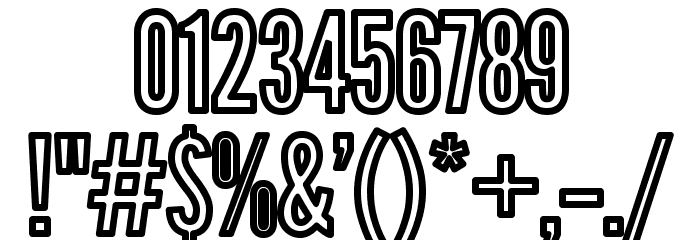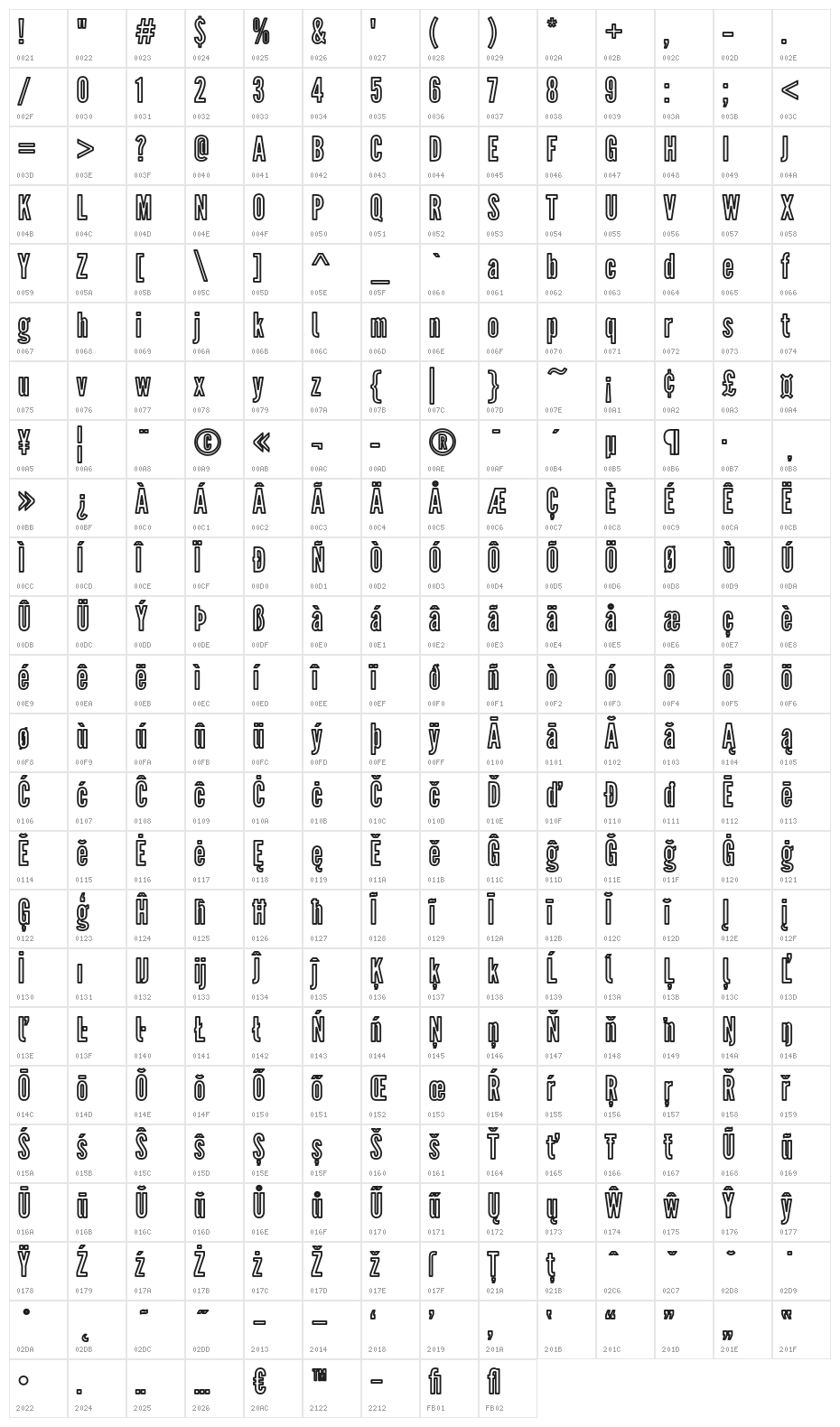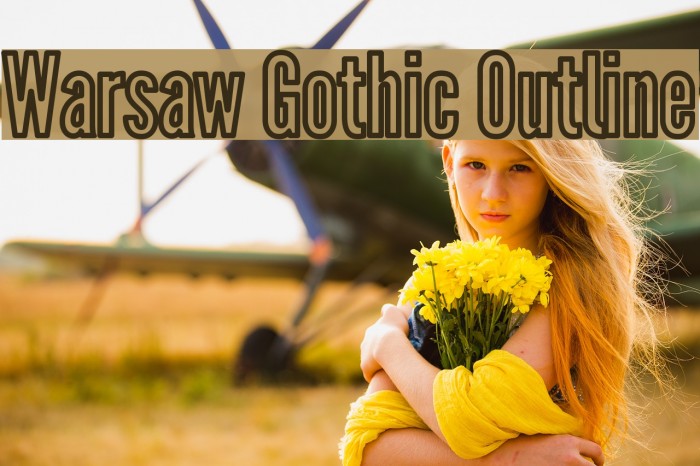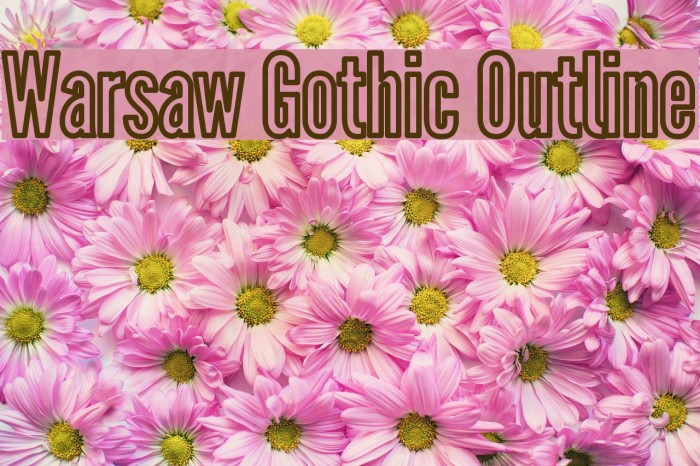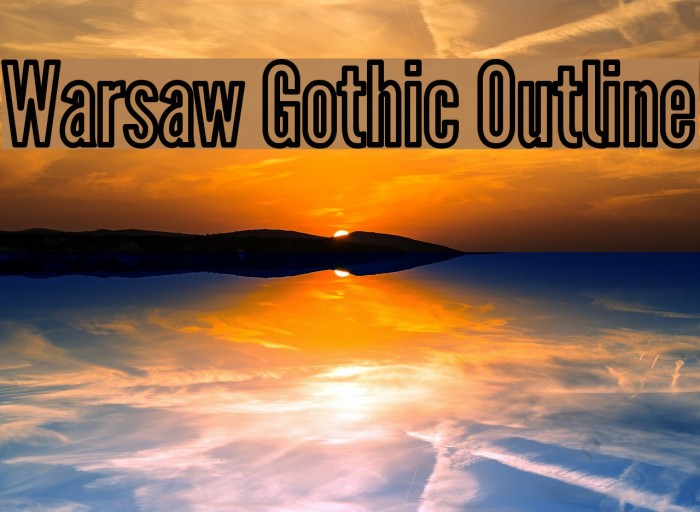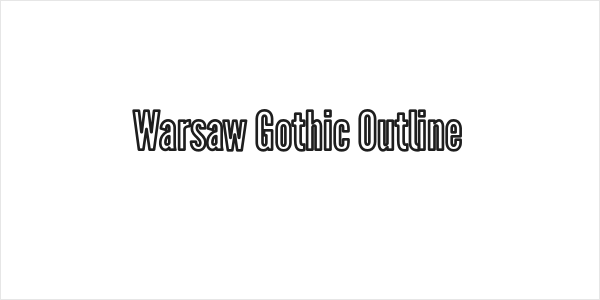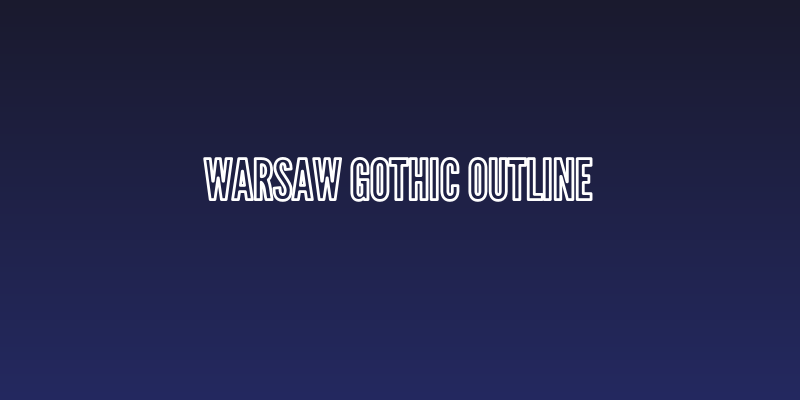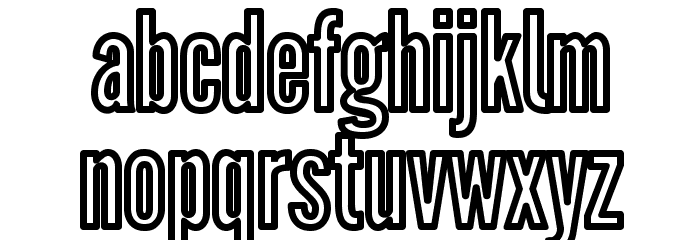
Warsaw Gothic Outline Font
Warsaw Gothic Outline Description
This font features a bold, outlined style that gives it a striking and modern appearance. The uppercase and lowercase letters are consistently designed with a strong geometric structure, making them highly legible. The numbers and special characters maintain the same bold outline, ensuring uniformity across all characters. The font's outline effect creates a sense of depth and dimension, making it ideal for eye-catching designs. Its clean lines and balanced proportions contribute to its versatility, allowing it to be used in a variety of contexts where a bold statement is desired.
| Proposed Projects | Ideal for posters, headlines, logos, and branding materials where a bold and modern look is needed. |